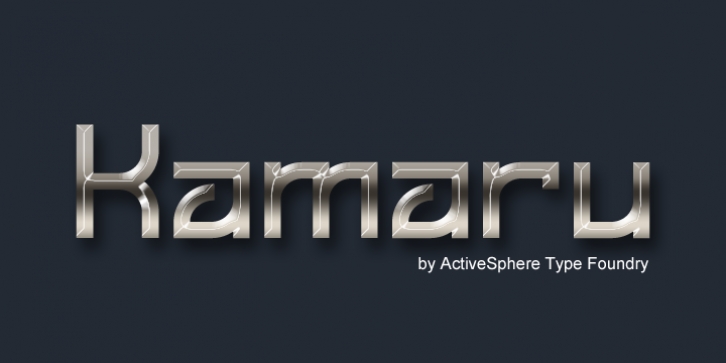
Kamaru Sans was designed by Ronnie Dela Cruz and published by ActiveSphere. Kamaru Sans contains 4 styles and family package options.
Kamaru Sans is a sans-serif display font and works best in text and display applications, such as headline, posters, signage, magazine, product branding, corporate branding, logos and titles.
Each style has a full upper and lower-case, accents, punctuation and a selection of monetary symbols.
· Kamaru Sans
· Kamaru Sans Italic
· Kamaru Sans Bold
· Kamaru Sans Bold Italic